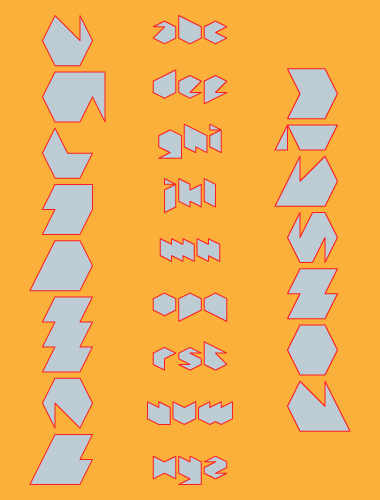
Fonstiv
Small and simple.
Cute and stylish with so disarmingly simple means, amazing ! hope you will develop it up to a complete set, it really deserves it !
Really cool and innovative. I like how the shape of the 'n' is ambiguous, but obviously an n.
Great use of repeating shapes for a totally hardcore sawtooth face! 10/10
So simple, yet so readable - nice work. 10/10
Well done with a difficult style in which to conform all the letters.
The 't' shape is clear but not good-looking. Maybe there could be another solution for it? Also, I thing the 'z' should be more angular at upper-right and lower-left corners.
Thank you Thalamic, I will try some alternates to the "t" and "z" as soon as I have time.
It kinda looks like tangrams lol. I like it.
Small and impressive!
Wonderfully simple and pretty letters. 10/10
Well done! I like this kind of pretty jewels!
Here's an idea for a new T...
nice one! I think it works very well :)